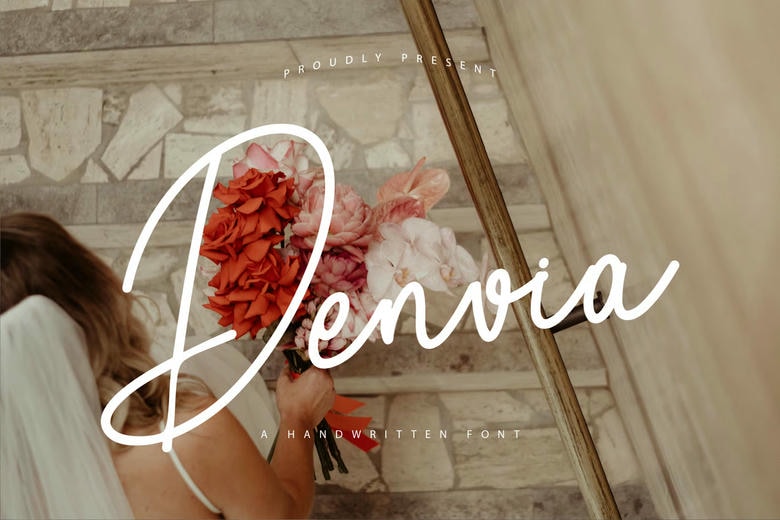
Denvia Font
Denvia is a complex and graceful script font that creates an ideal harmony between the tradition and the modern world due to the combination of flowing curves and the elements of modern design. It looks clear with graceful swashes and smooth letterforms making it have airy and fluid feel.
Denvia Handwritten Script Font